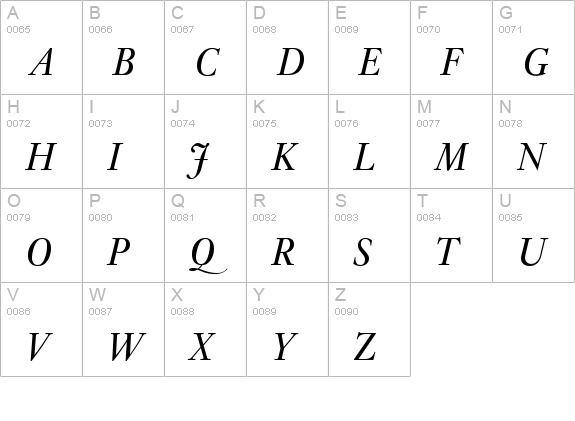
NikisEF-LightItalic Font Details
NikisEF-LightItalic is a delicate and elegant typeface that exudes a sense of sophistication and charm. With its slender and italicized design, this font is perfect for adding a touch of elegance to any project. The flowing curves and graceful lines of NikisEF-LightItalic make it ideal for use in fashion, beauty, and luxury branding. What sets NikisEF-LightItalic apart is not only its stunning aesthetic appeal but also the fact that it is completely free to download. Yes, you read that right - this exquisite font can be yours at no cost! Simply head over to FontsMarket.com to access this beautiful typeface and elevate your designs with its timeless beauty. Whether you're working on a wedding invitation, a high-end brochure, or a sophisticated logo, NikisEF-LightItalic is sure to make a lasting impression. Download it today and let your creativity shine with this exquisite and free font.